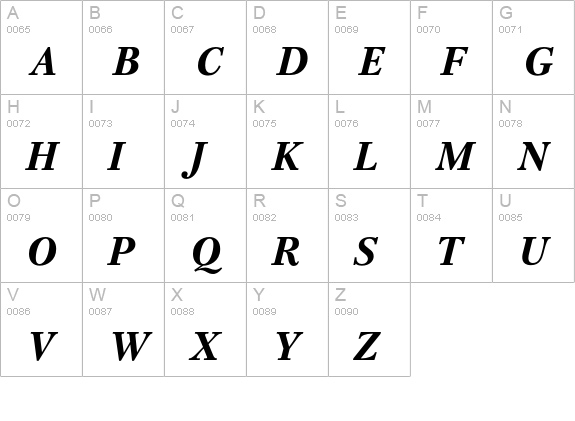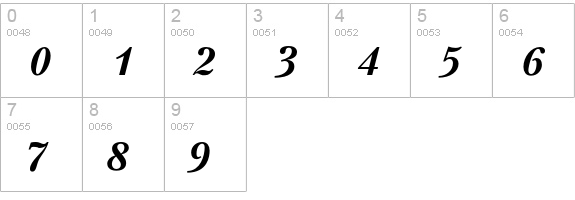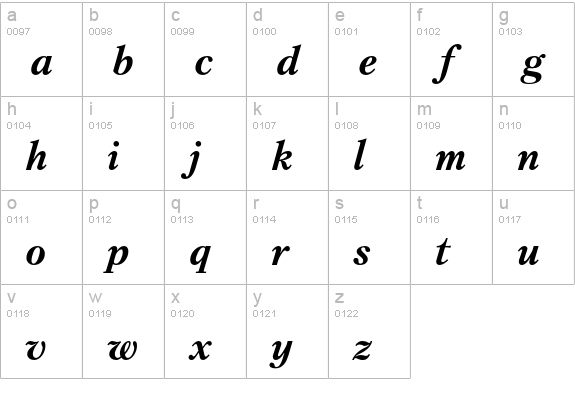
PT Petersburg BoldItalic Cyrillic Font Details
Introducing PT Petersburg BoldItalic Cyrillic font, a stunning typeface that exudes elegance and sophistication. With its bold and italic design, this font is perfect for adding a touch of flair to any project. Featuring the classic Cyrillic characters, PT Petersburg BoldItalic Cyrillic font is not only visually striking but also highly functional, making it an excellent choice for various design applications. Whether you're creating eye-catching headlines, stylish logos, or captivating posters, this font is sure to make a lasting impression. What sets PT Petersburg BoldItalic Cyrillic font apart is not only its impeccable design but also the fact that it is freely available for download at FontsMarket.com. Yes, you read that right! This remarkable font is completely free, allowing you to enhance your designs without breaking the bank. Downloading and installing PT Petersburg BoldItalic Cyrillic font is quick and easy. Simply visit FontsMarket.com, search for PT Petersburg BoldItalic Cyrillic font, and click the download button. Within moments, you'll have this exceptional font at your fingertips, ready to elevate your designs to new heights. So why wait? Unleash your creativity and download PT Petersburg BoldItalic Cyrillic font today. Whether you're a professional designer or a passionate hobbyist, this font is the perfect addition to your typography toolkit. Don't miss out on this incredible opportunity to enhance your designs with a free and captivating font. Visit FontsMarket.com now and experience the power of PT Petersburg BoldItalic Cyrillic font for yourself.